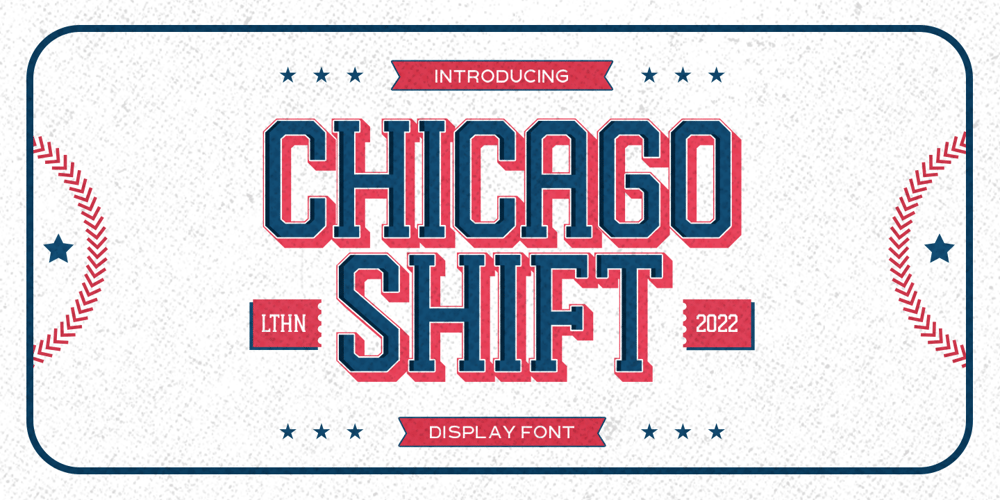
Chicago Shift Font Family was designed by Hendry Juanda and published by Letterhend. Chicago Shift contains 3 styles and family package options. Chicago Shift is a font specialized made for sport theme. Very suitable for for headline, logotype, apparel, invitation, branding, packaging, advertising etc with old school / vintage as well as modern theme. It comes in uppercase, lowercase, punctuations, symbols & numerals, stylistic set alternate, ligatures, etc also support multilingual and already PUA encoded.Features : numbers and punctuation multilingual alternates and ligatures PUA encoded We highly recommend using a program that supports OpenType features and Glyphs panels like many of Adobe apps and Corel Draw, so you can see and access all Glyph variations.